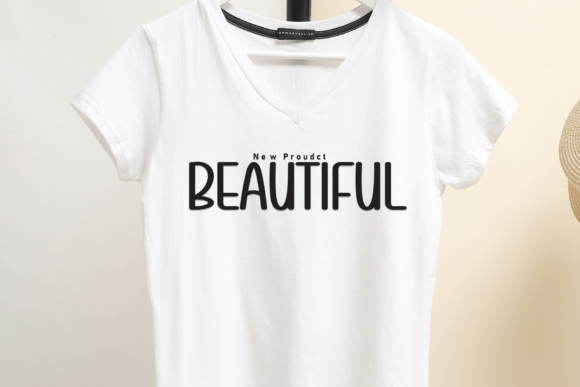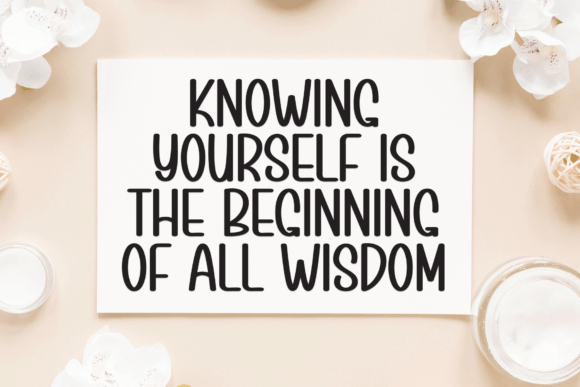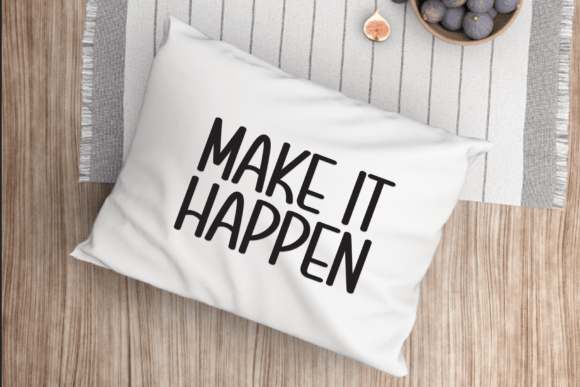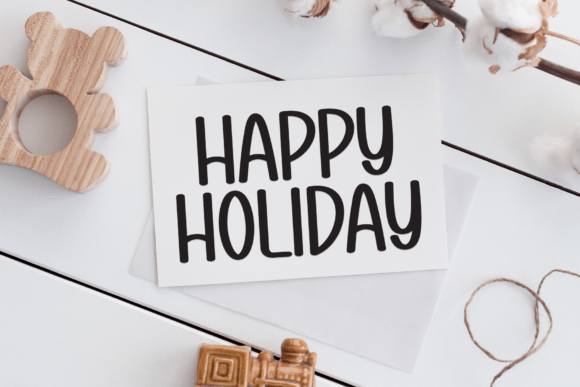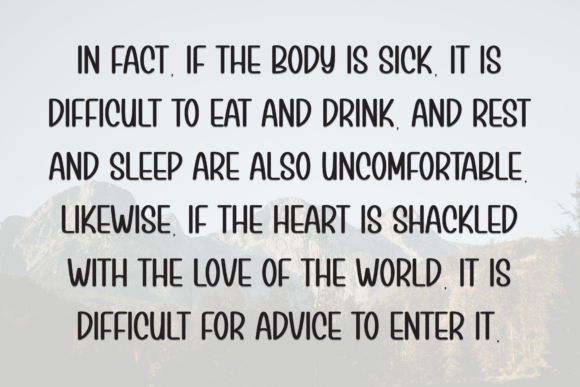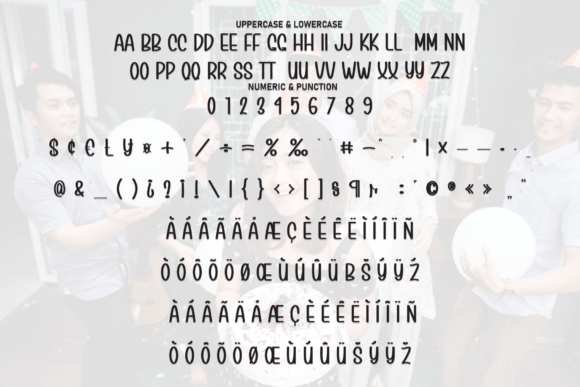
The Perfect Font for a Summer Soiree
There’s nothing quite like the feeling of whipping up a quick design for a friend’s surprise birthday party, with the clock ticking and a deadline looming. As you frantically search for the perfect font to capture the carefree spirit of the occasion, you stumble upon Birthday Verygood Font – and it’s love at first sight.
Birthday Verygood Font is a delightful display font designed to radiate fun and relaxation, making it perfect for summer posters, event flyers, and playful branding. With clean lines and an easygoing vibe, this cheerful typeface brings a breezy, laid-back feel to any creative project or message. For designers, having Birthday Verygood Font in their toolkit is a valuable asset, allowing them to create eye-catching and engaging designs that exude a sense of fun and spontaneity.
Birthday Verygood Font Key Features
- Font Family: Birthday Verygood Font is a custom-designed font family with multiple styles, including Regular, Italic, Bold, and Bold Italic.
- Character Set: Supports a wide range of languages, including Latin, Cyrillic, and Greek alphabets, with over 1,000 glyphs.
- Unique Characteristics: Features a unique, hand-drawn design with a playful and celebratory feel, making it perfect for birthday invitations, party decorations, and other festive designs.
Birthday Verygood Font Review
Overall, I’d say the Birthday Verygood Font is a decent choice for casual, celebratory designs, but it has its limitations.
- The font is playful and fun, perfect for birthday invitations, party decorations, or social media posts.
- The uppercase letters are bold and eye-catching, making them ideal for headings and titles.
- The font’s cursive feel gives it a personal, handwritten touch that’s great for handwritten-style designs.
- The font’s lowercase letters can appear a bit messy and uneven, which may detract from the overall design.
- The font’s spacing can be inconsistent, leading to awkward line breaks and layout issues.
- The font may not be suitable for formal or professional designs, as it can come across as too casual.
The Birthday Verygood Font is a fun, lighthearted choice for casual designs, but it’s not without its limitations. If you’re looking for a playful, celebratory font, it’s worth considering. However, if you need a more polished or professional look, you may want to explore other options.
Tips for Getting the Most Out of the Birthday Verygood Font
To get the most out of the Birthday Verygood Font, consider the following tips:
- Use the font in bold or italic to add emphasis to your text.
- Combine the font with other design elements, such as graphics and images, to create a cohesive look.
- Experiment with different font sizes and styles to achieve the desired visual impact.
The Birthday Verygood Font is commonly used for:
- Birthday invitations and cards.